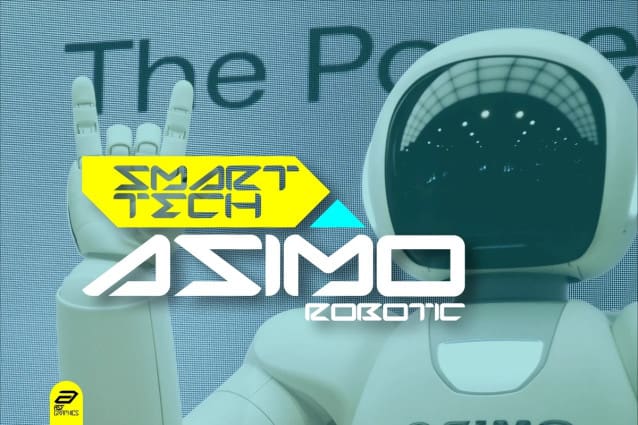
Martin Grely Font
Martin Grely Font, with a modern, simple and minimalist default, suitable to be applied to the world of games, movies, lifestyle, articles, t-shirts, even container boxes, yes, that’s the concept, hope you like it, thank you